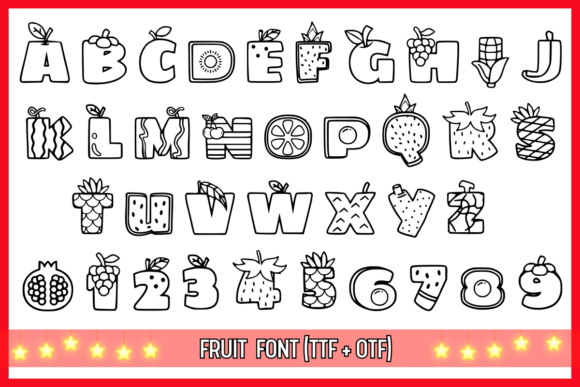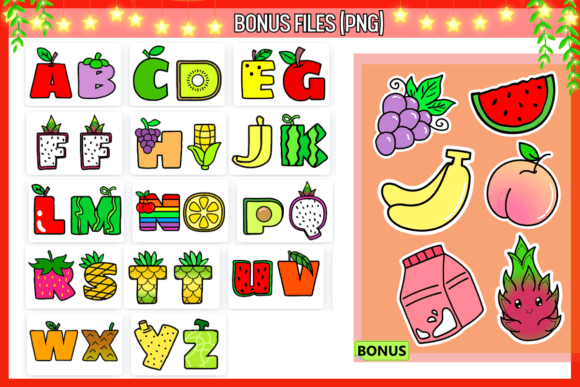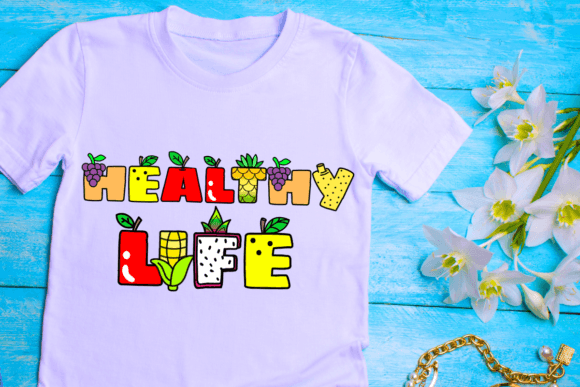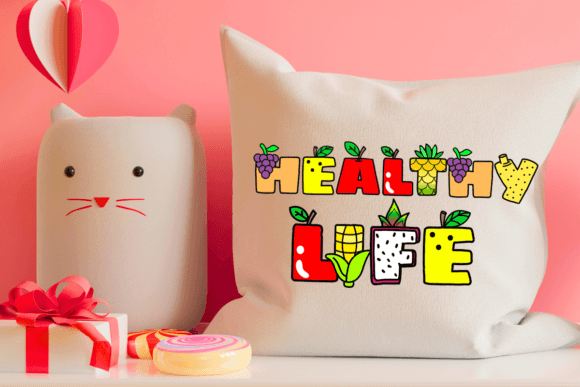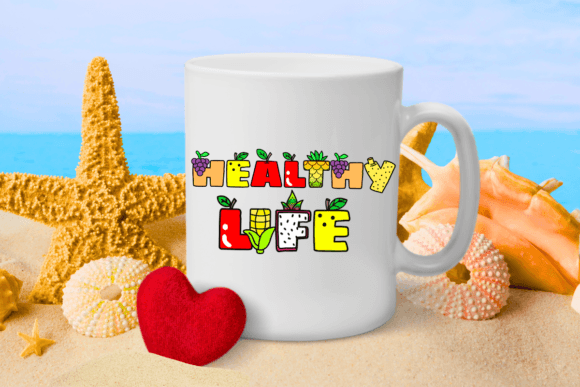
Fruit Font: Add a Deliciously Playful Touch to Your Designs
Are you tired of using the same old boring fonts in your designs? Look no further than the Fruit Font, a fun and colorful decorative font that’s sure to add a fruity twist to any project. In this article, we’ll dive into the world of Fruit Font, exploring its unique features, uses, and benefits for designers and crafters.
What is Fruit Font?
Fruit Font is a decorative font where each letter is uniquely designed to resemble a different piece of fruit. From A to Z, each letter is carefully crafted to look like a juicy, colorful fruit, making it a playful and vibrant addition to any design. Whether you’re working on a logo, poster, or social media graphic, Fruit Font is sure to make your project stand out.
Key Features of Fruit Font
- Unique Lettering: Each letter is designed to look like a different piece of fruit, making it a one-of-a-kind font.
- Playful and Vibrant: Fruit Font is designed to add a playful and fun touch to your designs, making it perfect for projects that require a lighthearted feel.
Uses for Fruit Font
Fruit Font is perfect for a variety of design projects, including:
- Logos and Branding: Add a fruity twist to your logo or branding materials with Fruit Font.
- Posters and Flyers: Create eye-catching posters and flyers with Fruit Font’s colorful and playful letters.
- Social Media Graphics: Add a fun and playful touch to your social media graphics with Fruit Font.
- Crafting and Scrapbooking: Use Fruit Font to add a personal touch to your crafting and scrapbooking projects.
Fruit Font offers a range of benefits for designers and crafters, including:
- Time-Saving: Fruit Font saves you time and effort by providing a pre-designed font that you can use in your projects.
- Uniqueness: Fruit Font’s unique design ensures that your project will stand out from the crowd.
Tips for Using Fruit Font
Here are a few tips for getting the most out of Fruit Font:
- Mix and Match: Experiment with different letter combinations to create a unique look.
- Pair with Other Fonts: Pair Fruit Font with other fonts to create a contrasting look.